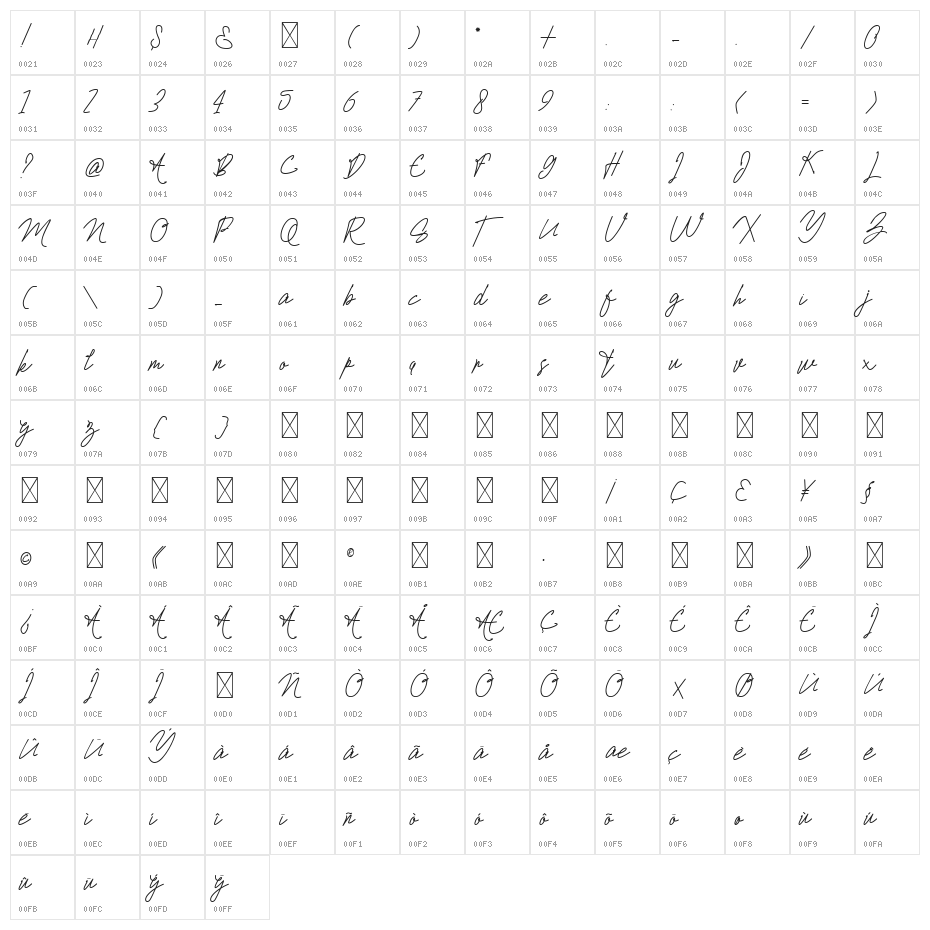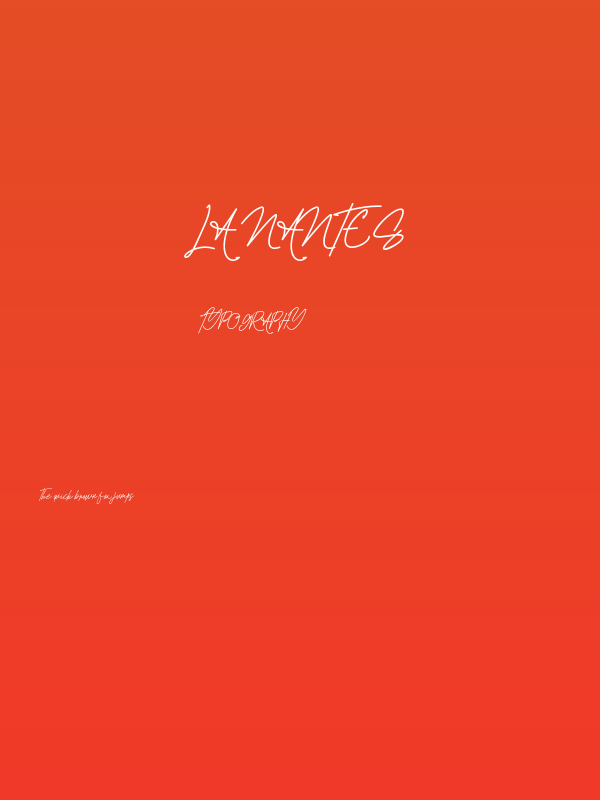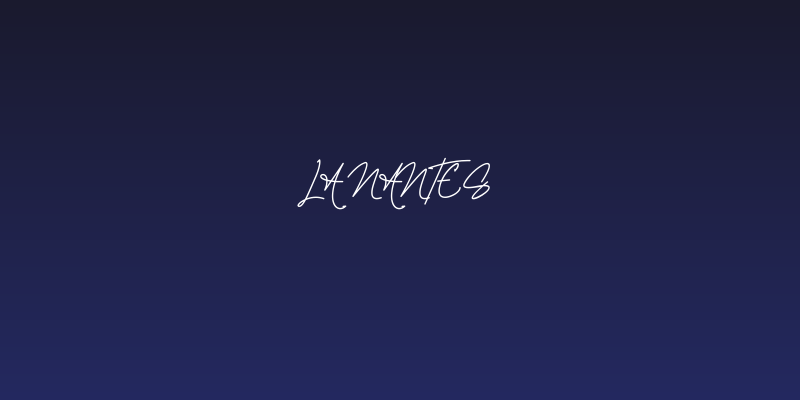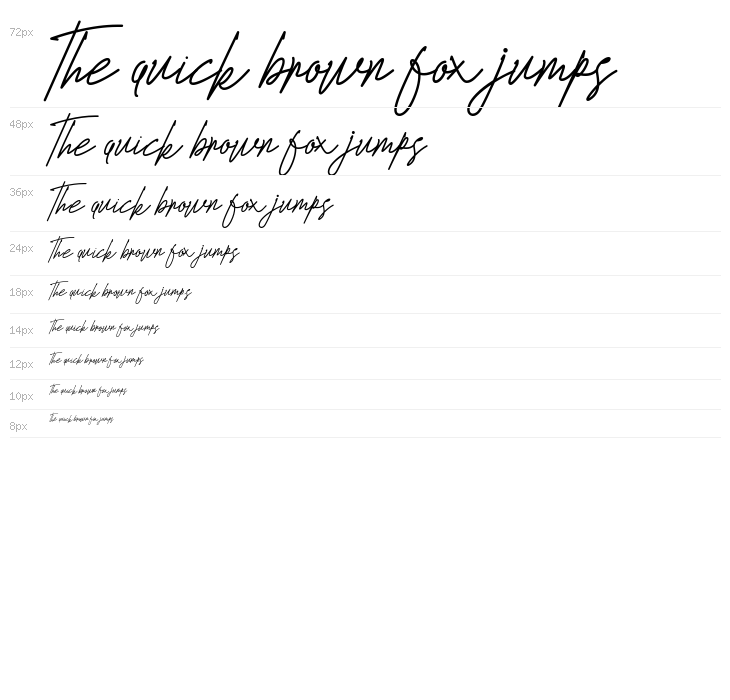
La Nantes Font
La Nantes Description
This elegant script font features a fluid, cursive style with a natural handwritten appearance. The characters are connected, creating a seamless flow that mimics the look of traditional calligraphy. The uppercase letters are bold and sweeping, while the lowercase letters maintain a consistent, graceful curve. The numbers are distinct yet harmonize well with the overall style. Special characters are thoughtfully designed to match the font's aesthetic, adding versatility for various uses. The font's delicate lines and smooth transitions make it ideal for projects that require a personal touch.
| Overall Style | Elegant, Handwritten |
| Proposed Projects | Ideal for wedding invitations, greeting cards, personal branding, and elegant logo designs. |